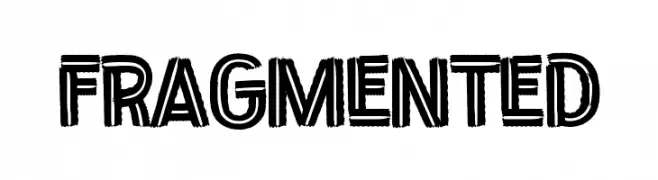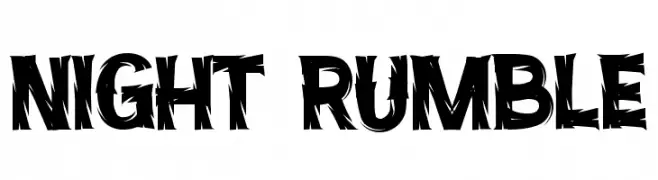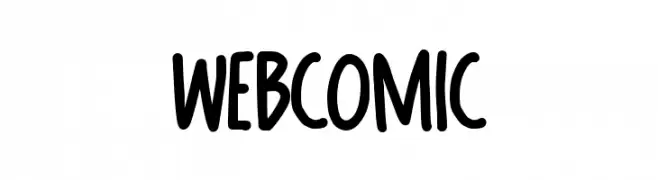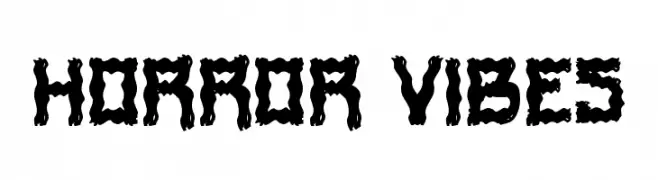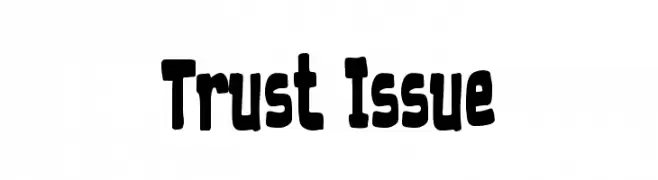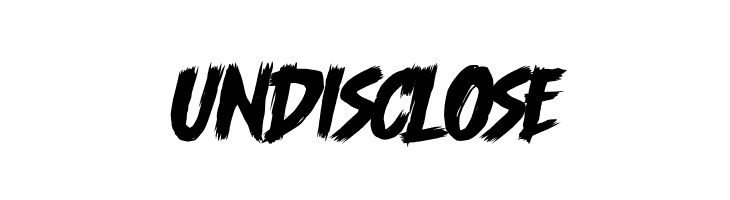
A bold, fragmented font with a textured, three-dimensional effect.
A bold, jagged font with a distressed, energetic style.
A bold, hand-painted style font with dynamic, brush-like strokes.
A playful, hand-drawn font with bold, rounded characters ideal for comic-style projects.
A bold, dripping font ideal for horror themes and eerie designs.
A bold, jagged font with a dynamic, brush-like texture.
A bold, brushstroke font with sharp, dynamic edges.
A bold, hand-painted style font with dynamic, irregular strokes.
A bold, handwritten font with a playful, brush-like texture.
A bold, playful font with a hand-drawn, whimsical style.